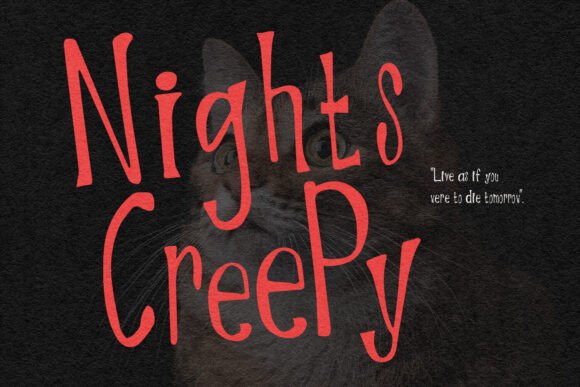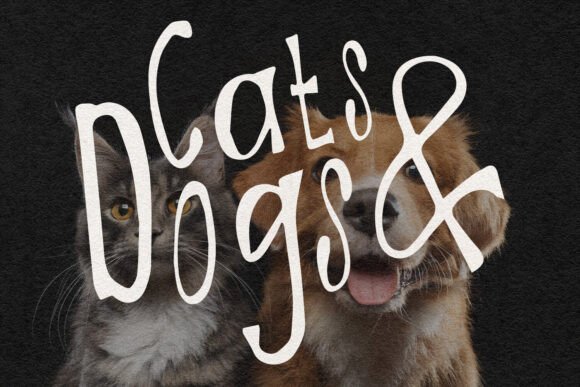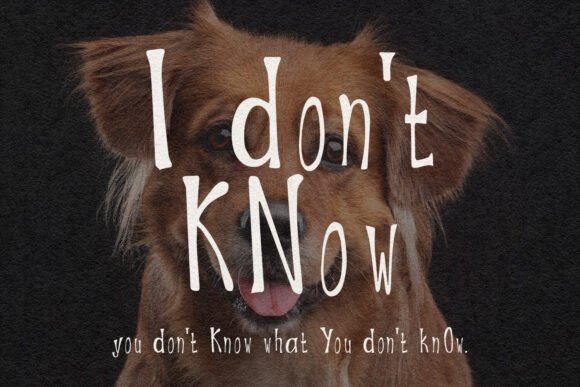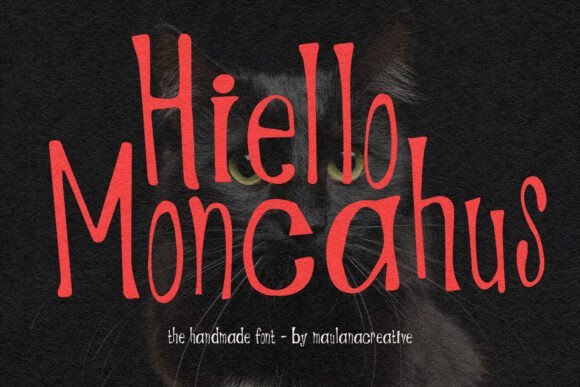
Introduction to Hiello Moncahus Font
Hiello Moncahus is a unique, handmade display font that has a fun and creative style.
It features bold, playful letters with a handcrafted look, perfect for making eye-catching titles, logos, and designs Its friendly and artistic appearance gives any project a personal touch.